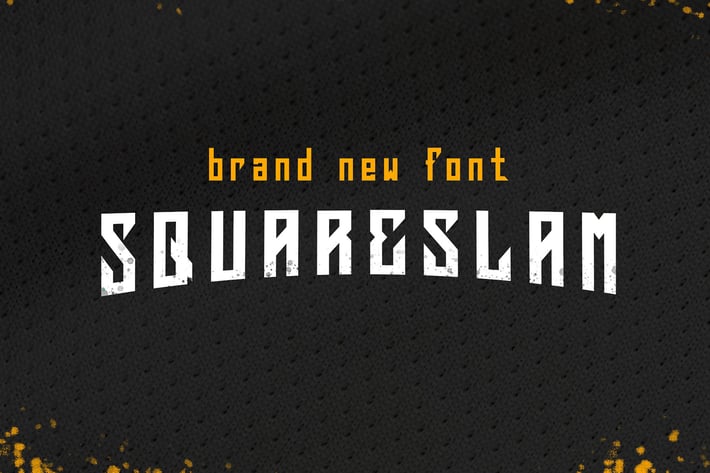
Squareslam - NFC Font Family
Introducing, SQUARESLAM NFC Font Family, after a long time not uploading new item, finally Ovoz Graphics start to creating new font that related to sports industries.
With bold and strong look that match with sports branding, this font very suitable use for baseball, hockey, basketball, etc.
This font has more advantages, such as more unique and unusual style you can explore.
Available into uppercase, lowercase, symbol, numeral, punctuation and including so many variant of glyph. Also suitable to t-shirt, jacket, hat, or everything related about merchandise.